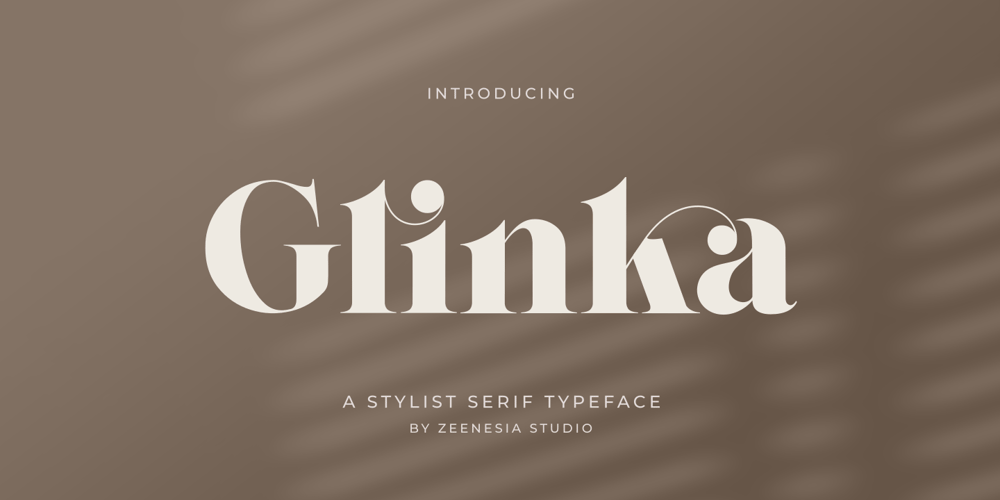
Glinka
Glinka font
Glinka Font Family was designed by Doni Purwoko and published by Zeenesia Studio. Glinka contains 1 styles and family package options. Introducing GlinkaGlinka is a modern and elegant serif font. I created many stylistic alternates and some natural ligatures to make this font very classy and look so classy.Glinka is well-suited for advertising, branding, logotypes, packaging, titles, headlines and editorial design. I created more much alternates variant and much natural ligatures to make this font very classy and look so beauty. Glinka was built with open type features make your project will be perfect.We hope you enjoy the font, please feel free to comment if you have any thoughts or feedback.Thanks for purchasing and glad to help you!